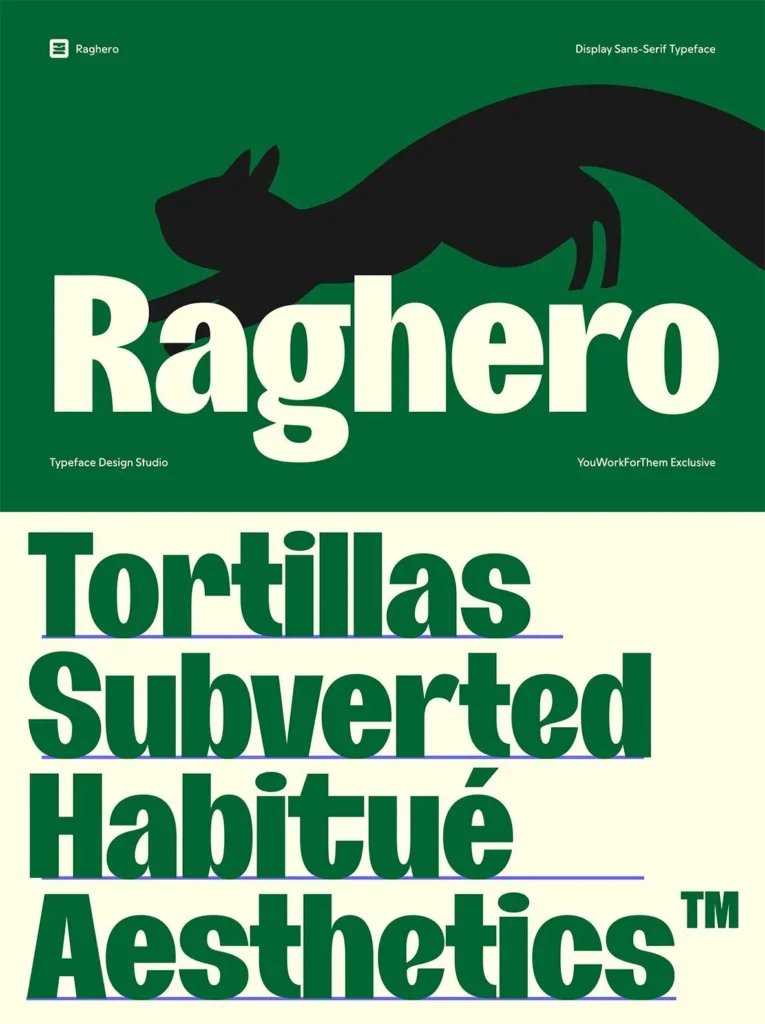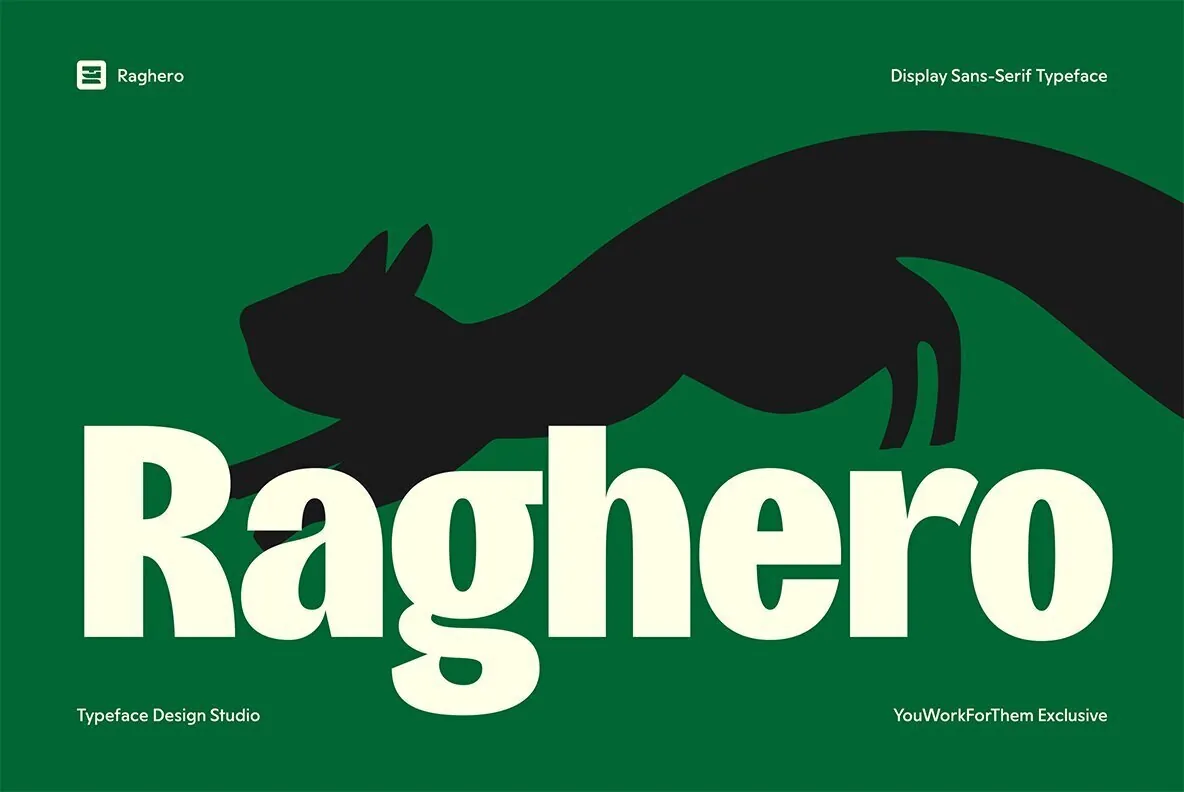
Raghero: Contemporary Sans Serif With Strong Visual Impact
Raghero is a modern display sans serif typeface designed for bold, impactful communication. Its heavy weights, wide structure, and rounded shapes establish a visual presence that commands attention. Whether used in headlines or branding, Raghero supplies clarity and distinction, making it especially suitable for large-scale applications.
The typeface merges geometric precision with organic curves, lending it a sense of professionalism while remaining approachable. Uppercase letters exude a monumental quality, while the lowercase forms offer rhythm and character through thoughtfully designed alternates. Raghero also features a legible numeral set, supporting effective communication in both digital and print contexts.